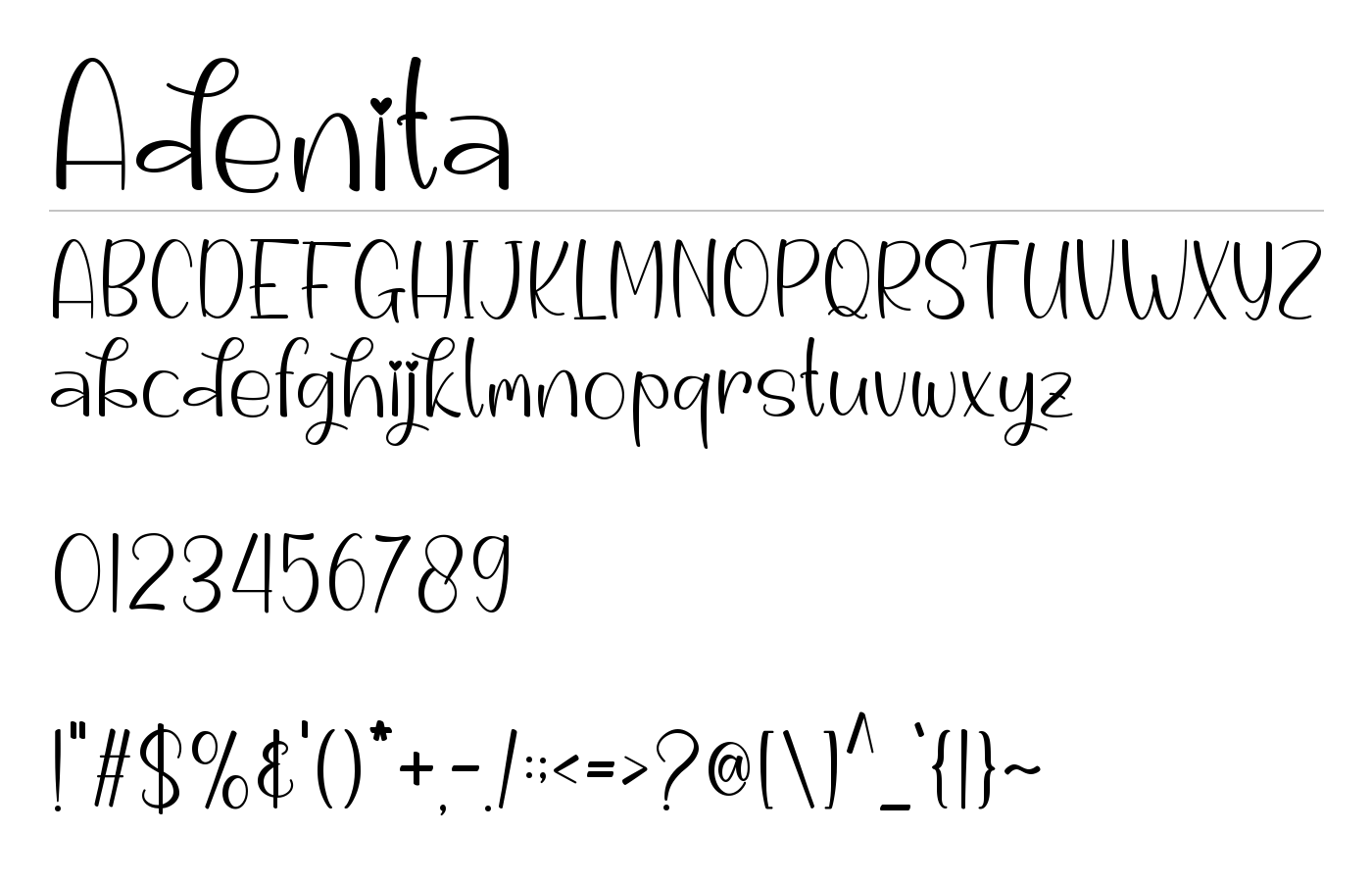
Adenita is a whimsical and playful handwritten font with tall, slender letterforms and delicate strokes that convey a friendly, casual vibe. Its unique, quirky details like heart-shaped dots add charm and personality, making it perfect for creative projects, invitations, and branding that seeks a warm, approachable feel. This font works well in headlines and decorative text where a fun and lighthearted tone is desired.
Adenita Font
About Adenita Font